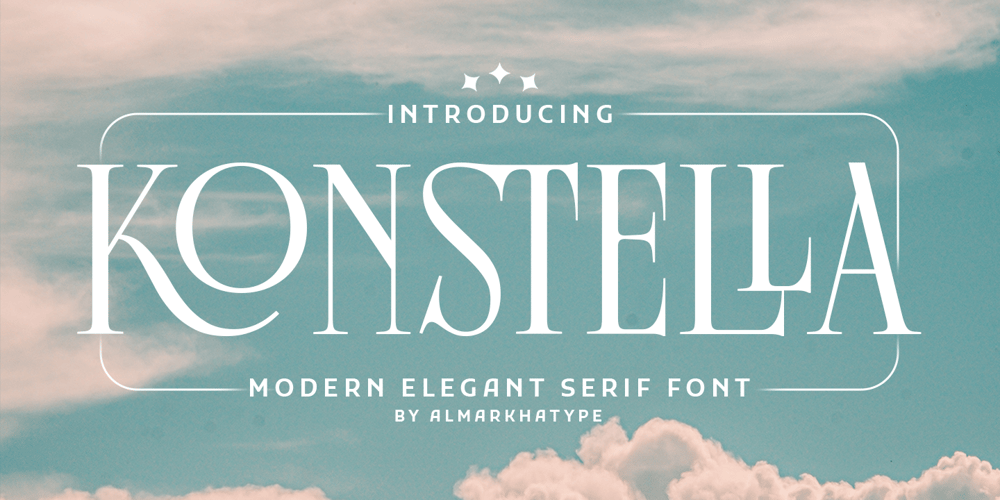
Konstella
Konstella font
Konstella Font Family was designed by Abdul Malik Wisnu, Rivo Dwi Adriansyah and published by Almarkha Type. Konstella contains 1 styles and family package options. Introducing Konstella, a condensed elegant modern vintage serif typeface meticulously crafted with exquisite ligatures, special alternative glyphs, and extensive multilingual support. Versatile and refined, this font seamlessly adapts to both large and small sizes, catering to a diverse array of design needs.Perfect for editorial projects, logo design, clothing branding, product packaging, magazine headers, and beyond, Konstella brings a touch of sophistication to every application. Whether you’re crafting a timeless logo or enhancing a background image with stylish text overlays, this font effortlessly elevates your projects with its blend of classic charm and contemporary allure.